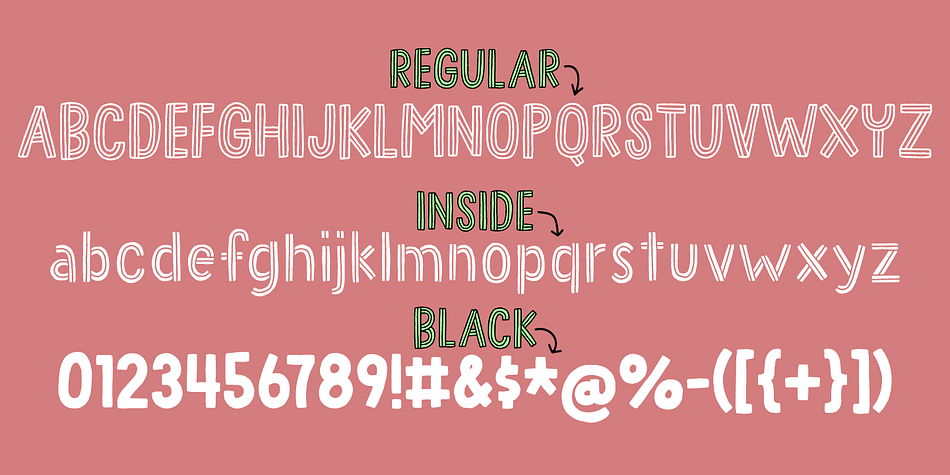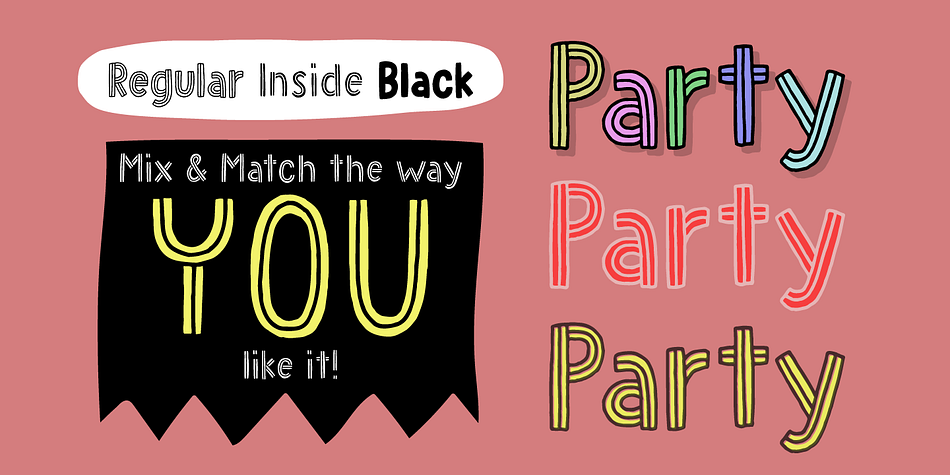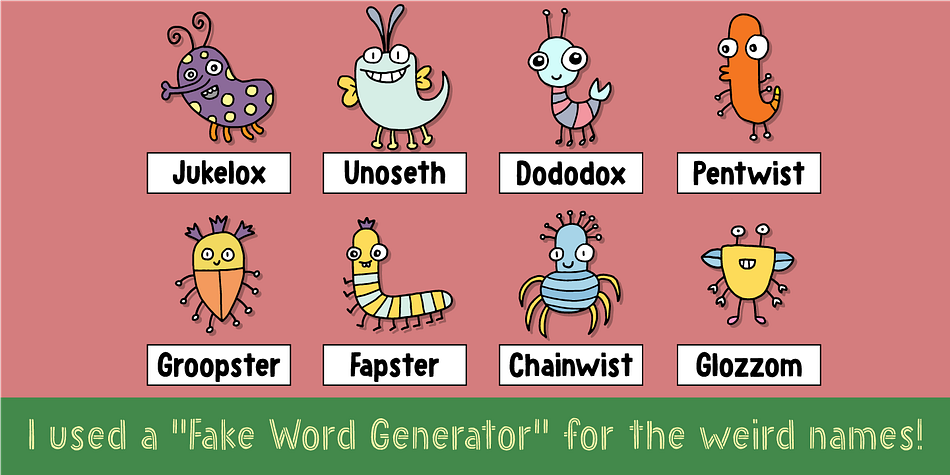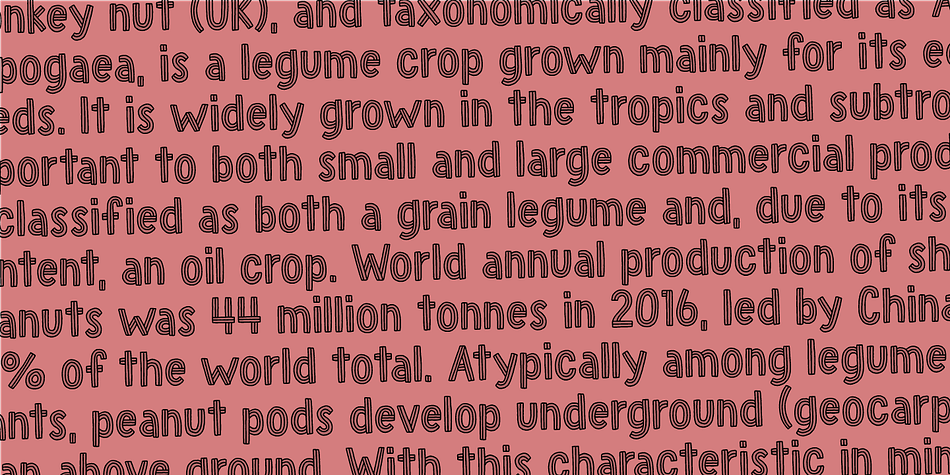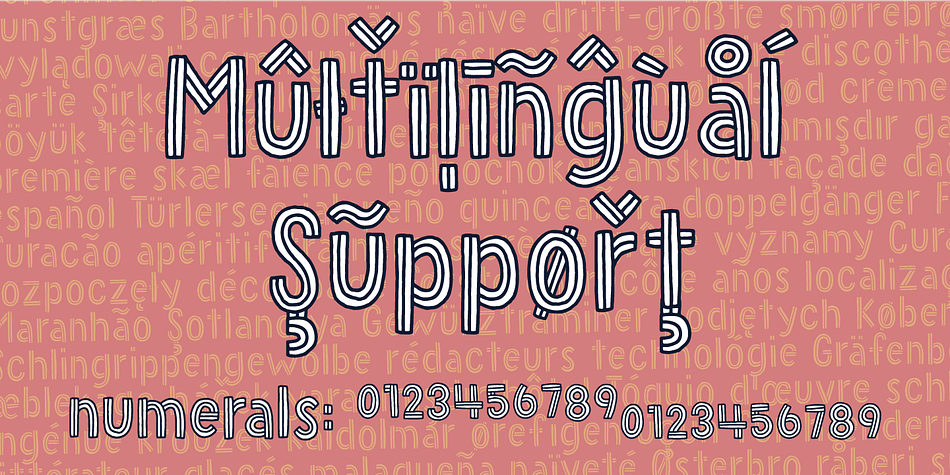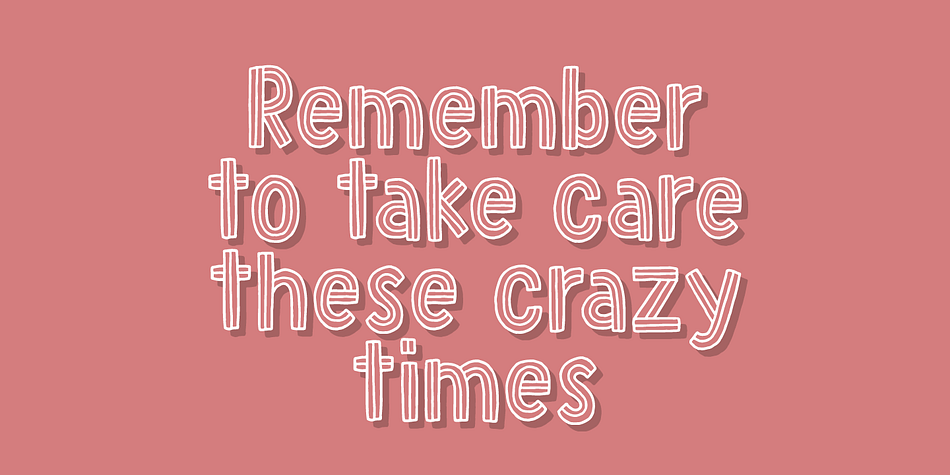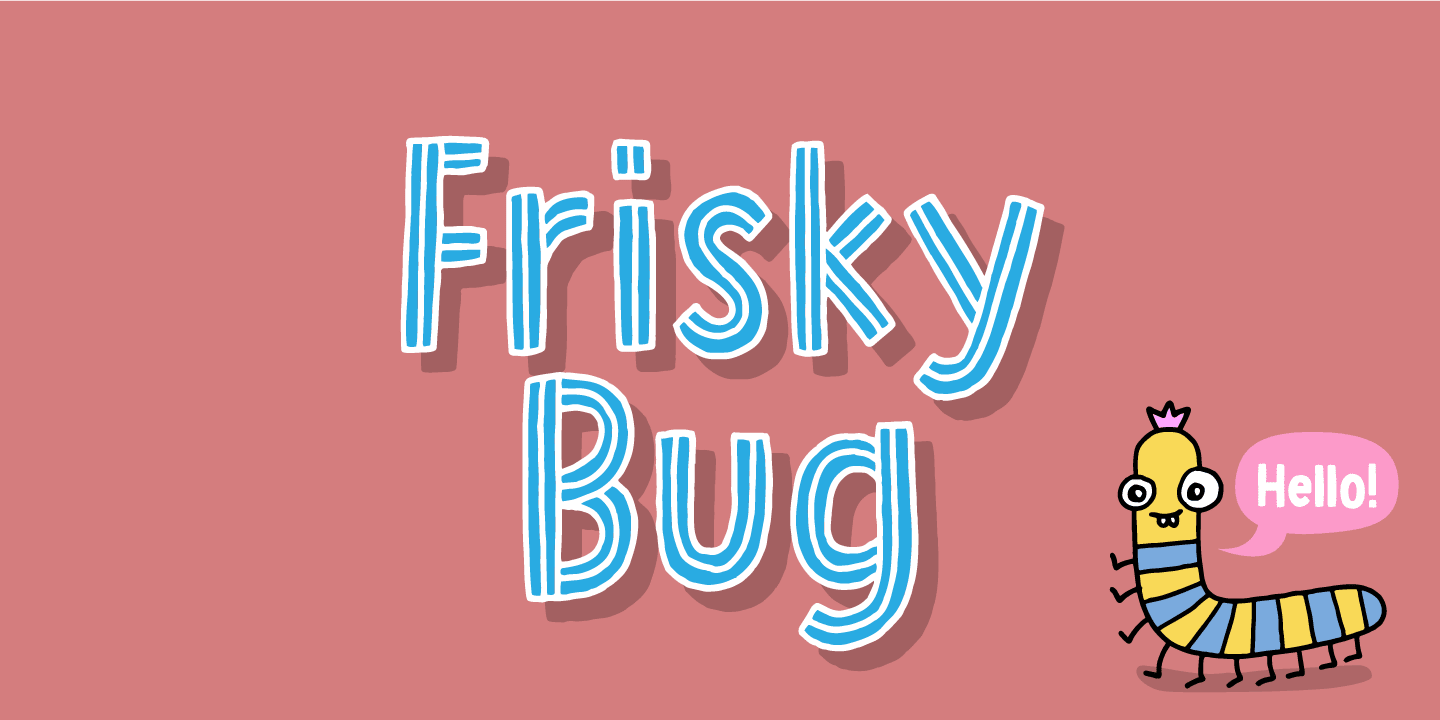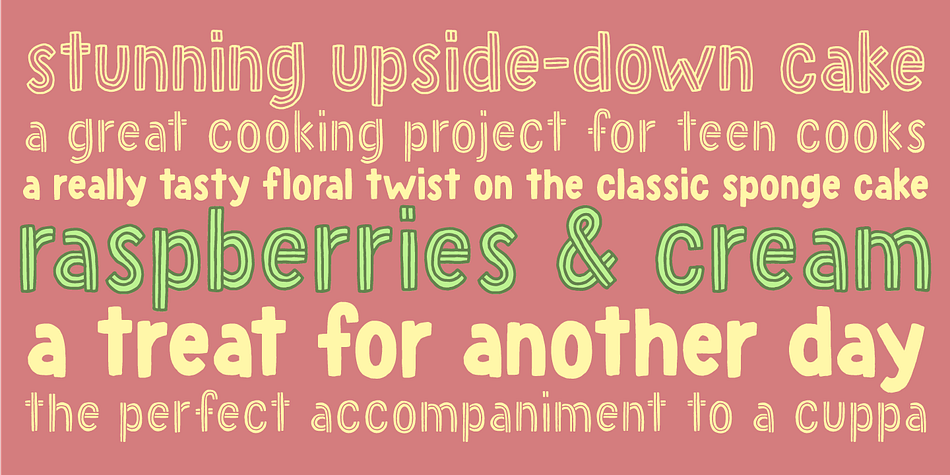
Designed by Jakob Fischer, Frisky Bug is a hand display font family. This typeface has three styles and was published by Bogstav.
Say hello to my multi-layered handmade sans font - not as frisky as the name, but frisky enough for most designs that needs that extra twist! Mix the 3 layers as you wish for great results!